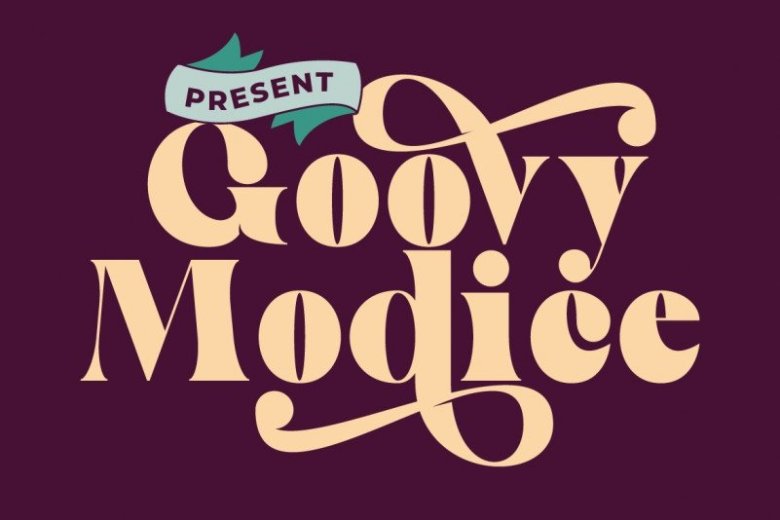
Goovy Modice Font
Goovy Modice Serif Font was designed to be a typeface that is pleasant to read on screens. The typeface a refined touch that give any headline an elegant appearance. Goovy Modice is designed with both modern and vintage curves. It can easily be matched to an incredibly large set of projects, so add it to your creative ideas and notice how it makes them stand out!